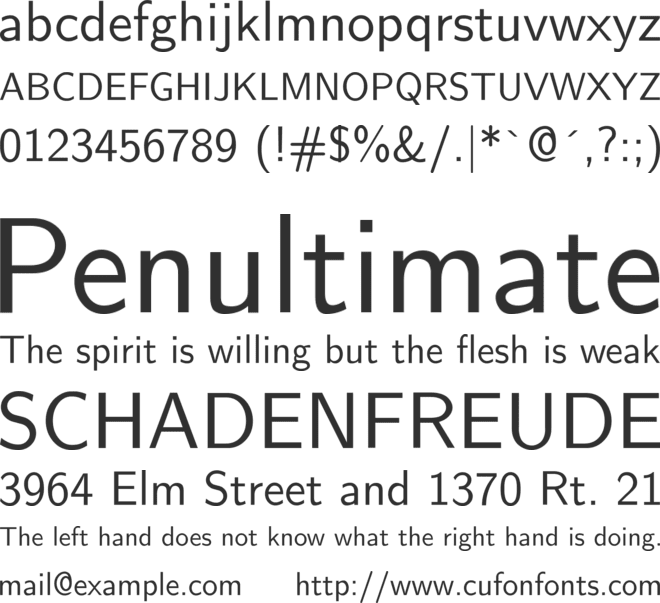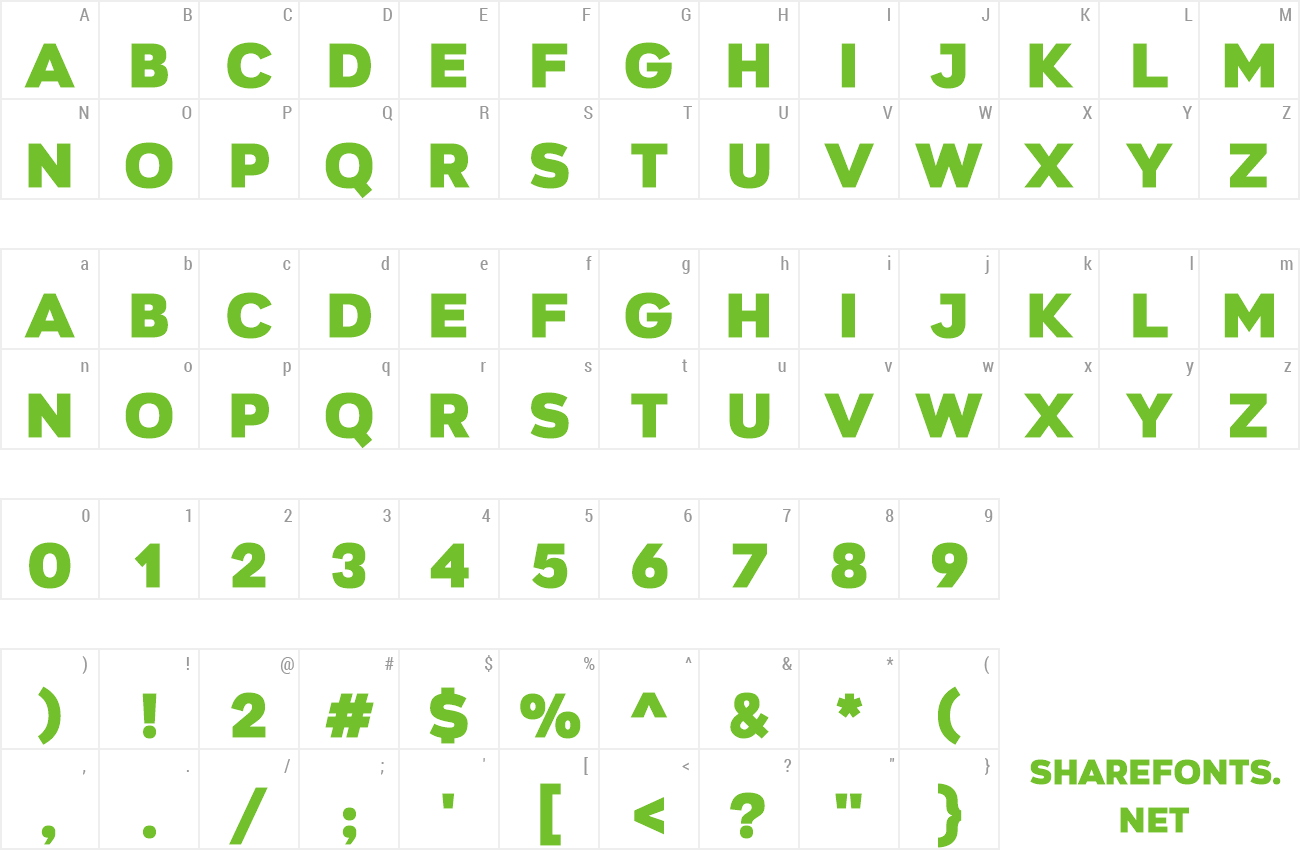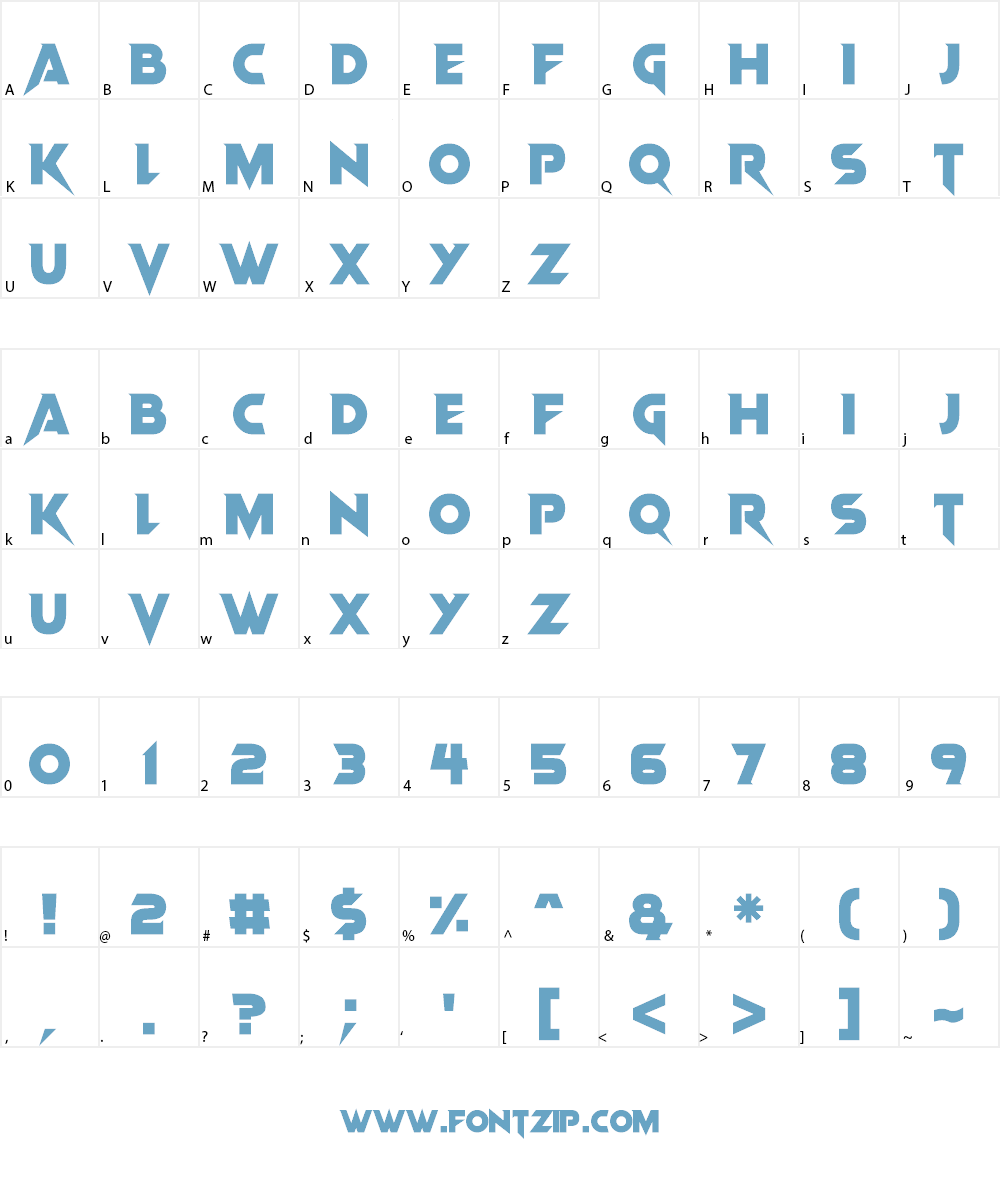
Examples of serif fonts.
Sans serif fonts samples. This page contains just a few. Microsoft sans serif font family. In the print world serif typefaces are almost universally used for setting running body text however on the web sans serifs dominateon lower resolution displays sans serifs tend to display better however higher resolution displays can better handle the fine. Caleigh huber morris fuller benton class.
They are often used to convey simplicity and modernity or minimalism. List of sans serif typefaces. It was designed to be metrically compatible with the ms sans bitmap font that shipped in early versions of microsoft windows. Guenter gerhard lange class.
Samples of sans serif typefaces typeface name example 1 example 2 example 3 agency fb designer. Microsoft sans serif font is a very legible user interface ui font. In this article overview. This list of samples of serif typefaces details standard serif fonts used in printing classical typesetting and printing.
Some examples of sans serif types are helvetica frutiger optima and futura. Samples of serif typefaces typeface name example 1 example 2 example 3 adobe jenson. Many people feel that sans serif fonts look cleaner and more modern while serif fonts look more traditional more book like. Sans serif fonts tend to have less stroke width variation than serif fonts.